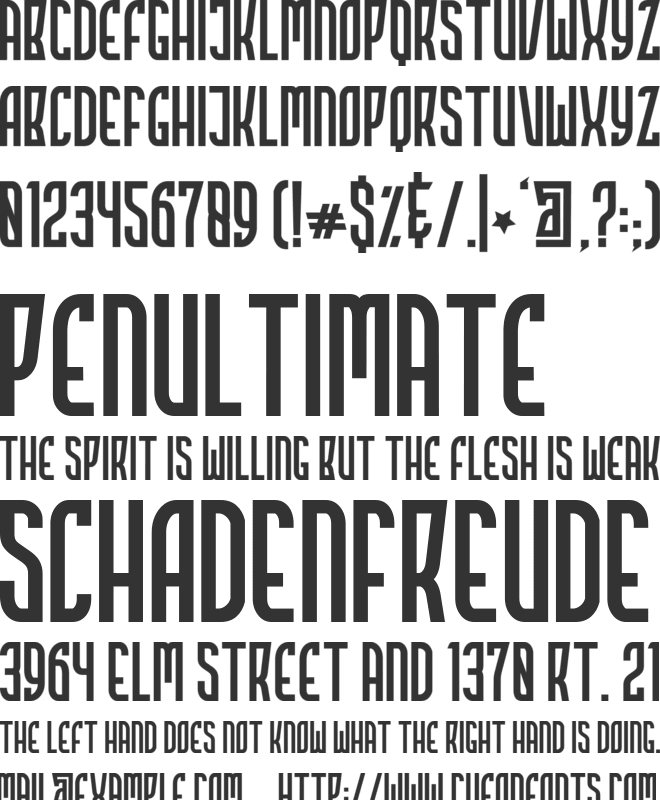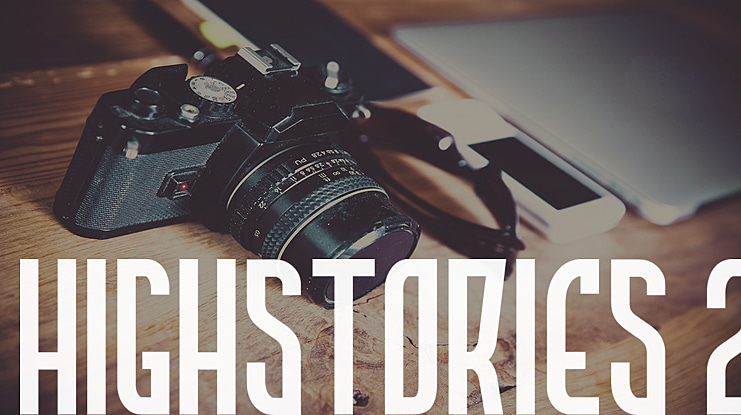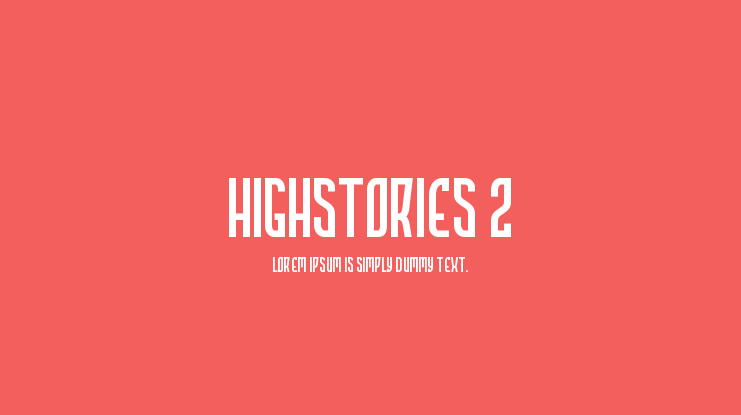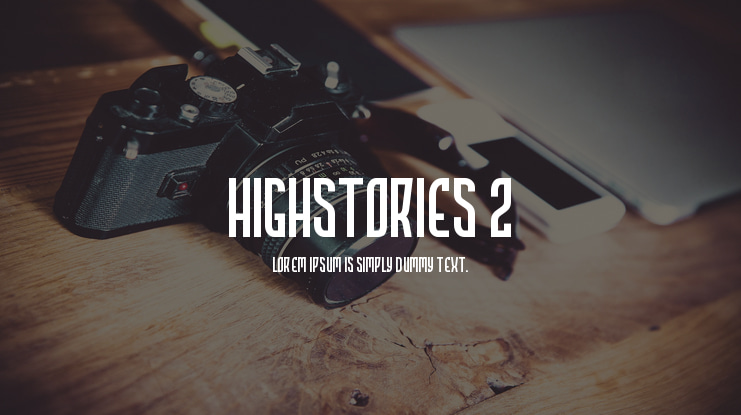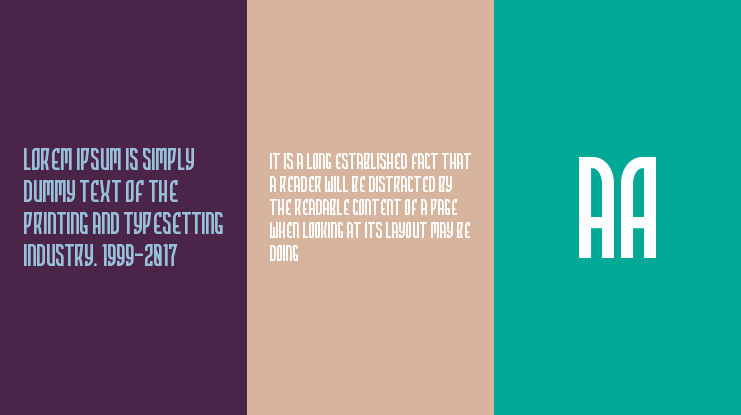
Highstories 2 Font
Malik Wisnu
Say Hello Guy's ... Introducing Highstories Family with Better Pairing style. The best font collection with some interesting styles and a beautiful blend in your design, the letters look firm and easy to use in your various works best for use Poster, Branding, Logotype,t-shirt design product design,packaging and Quotes and more again. visit here : https://crmrkt.com/4vEz7W what the monoline font pairing in preview ? https://crmrkt.com/0ymDdb Don't forget to visit our other products : Nocturnal : https://crmrkt.com/Q29QR0 The Stronger : https://crmrkt.com/wMmeNj Sweet Cupcake : https://crmrkt.com/R24Gd5 Derbie &Cuttie : https://crmrkt.com/Vb2V2k